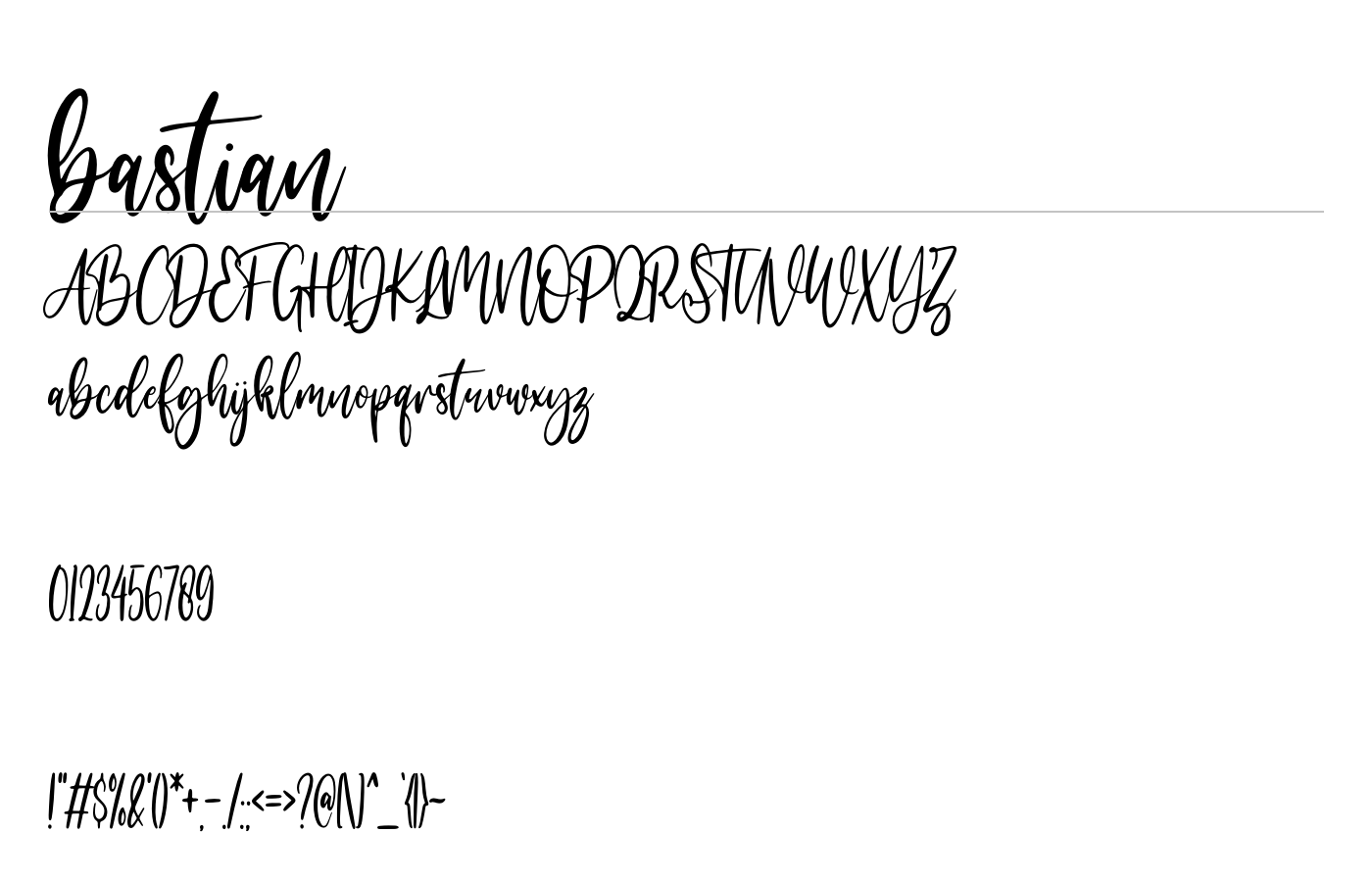
Bastian is a stylish and elegant script font with a handwritten feel, featuring smooth, flowing strokes and a moderate contrast between thick and thin lines. Its tall, narrow letterforms and distinctive, well-connected characters make it perfect for adding a personal, artistic touch to branding, invitations, and creative projects where a refined yet approachable look is desired. This font works especially well in headlines, logos, and packaging when you want to convey elegance mixed with a casual charm.
bastian Font
About bastian Font